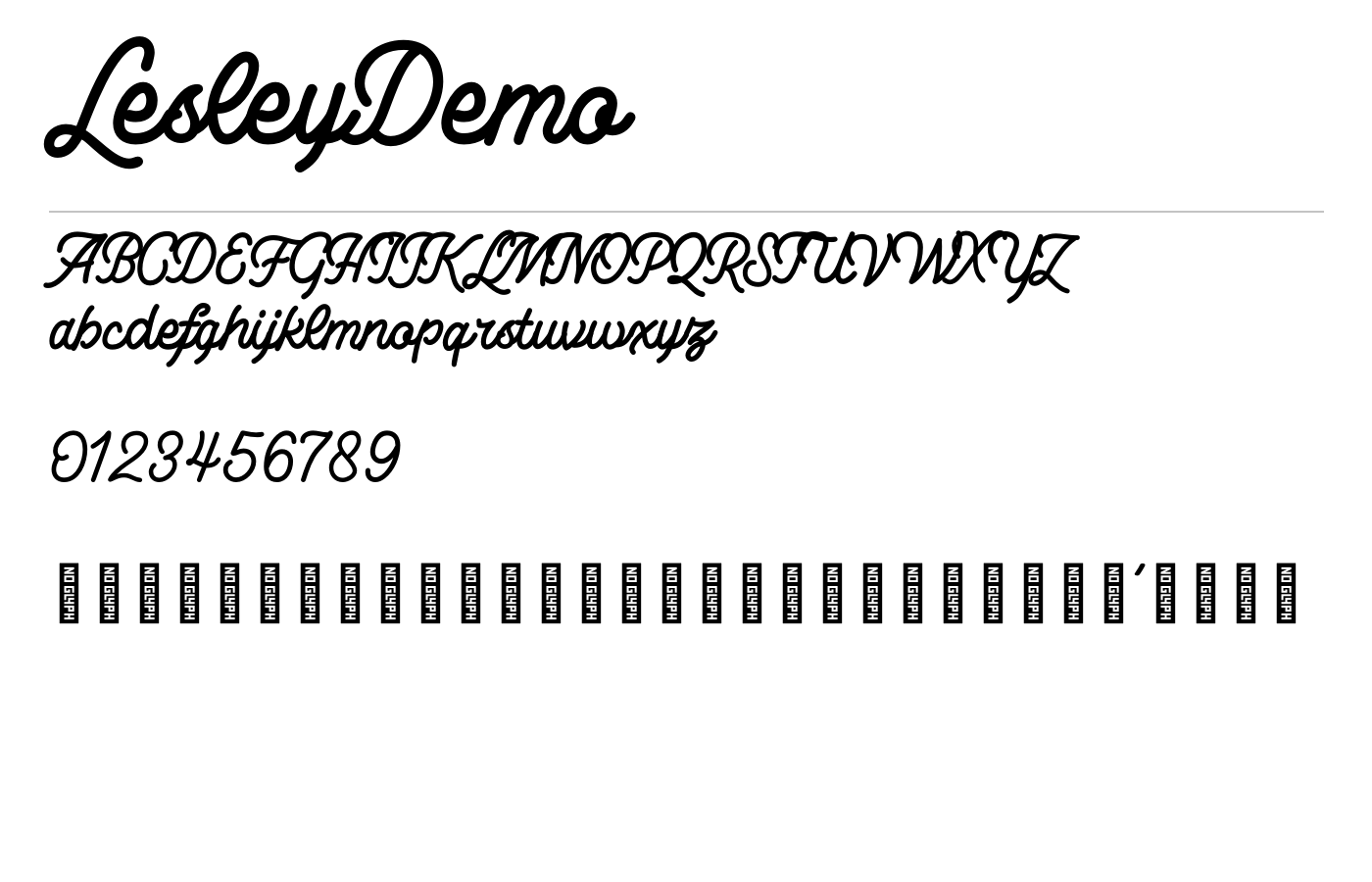
Lesley Font is a stylish script typeface with smooth, flowing curves and a friendly, handcrafted feel. Its medium weight and moderate contrast make it versatile for branding, invitations, and playful yet elegant designs, while the clear letterforms ensure readability in both uppercase and lowercase. This font works well for projects seeking a warm, approachable, and creative touch.
| Font family | Lesley Font |
| Designer | Abdurrahman Hanif |